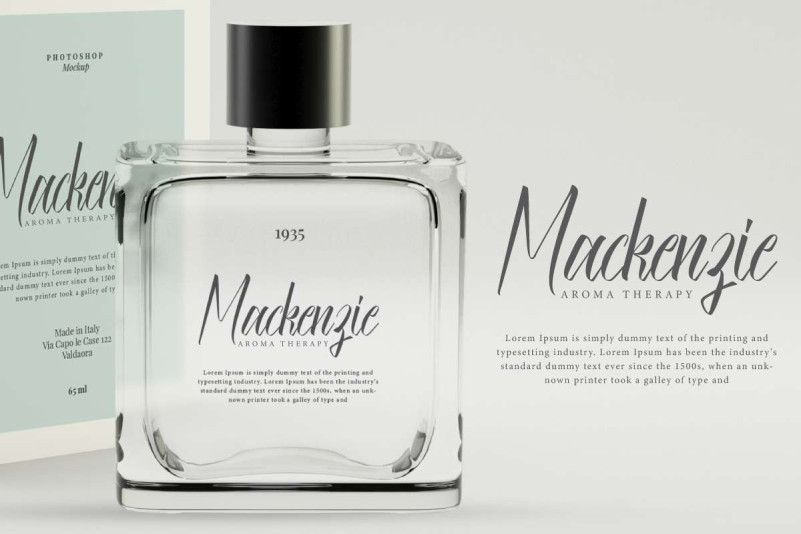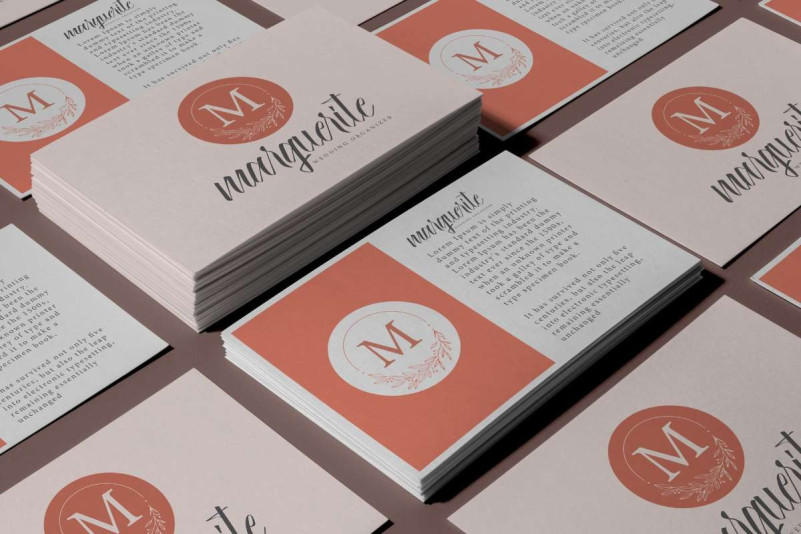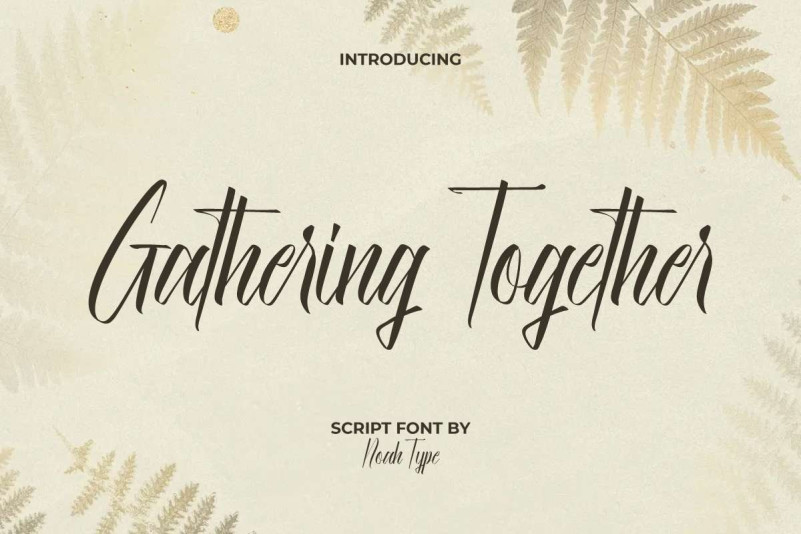
Gathering Together Font
Gathering Together Script Font is a gorgeous signature calligraphy script font from NoahType. This font is made of beautiful lines that convey luxury that will delight your eyes to produce glamour designs, such as apps, business card, custom design, invitation, label, magazine catalog, menu, poster, product packaging, quotes, title, watermark, website, and more!
Gathering Together Font includes full set of Uppercase and Lowercase Basic Characters, Numerals, and Punctuation. It also contain Ligature characters that will add perfection and making it suitable for many industries, such as cosmetic, fashion, florist, furniture, interior design, jewelry and accessories, perfume, skincare, spa and salon, wedding or event organizer, etc.